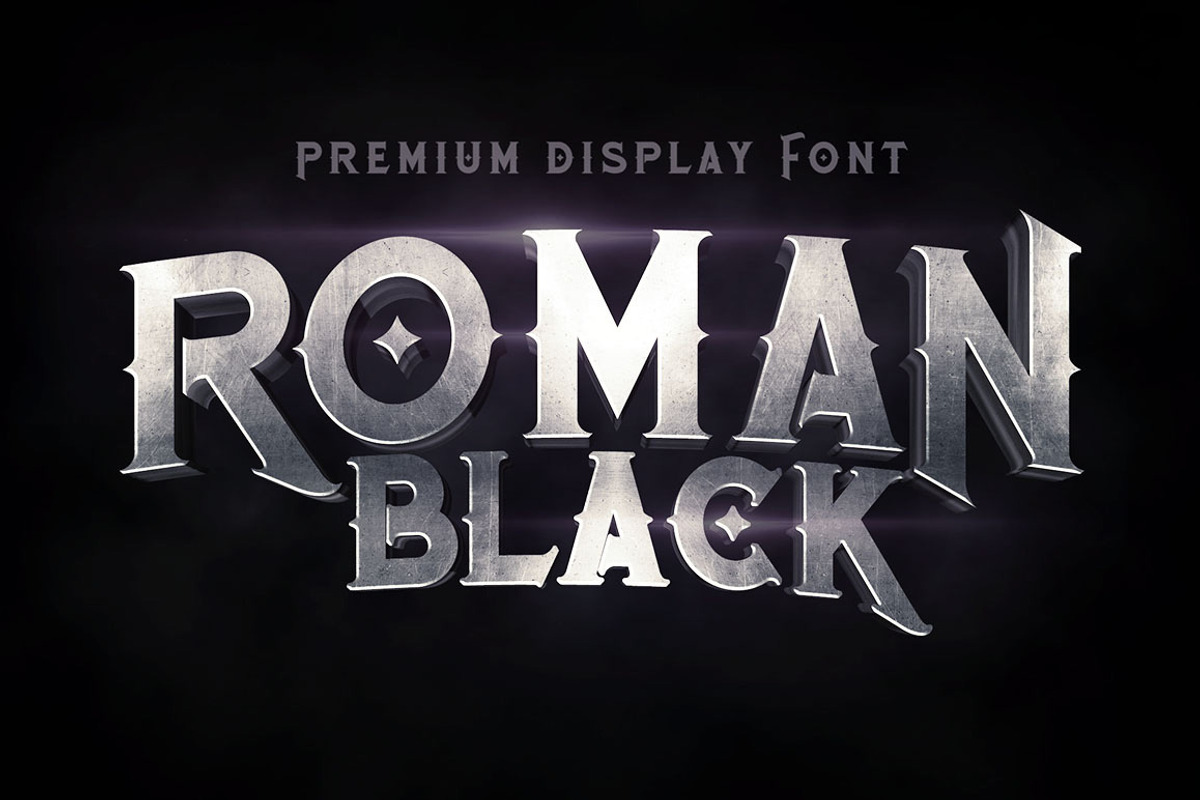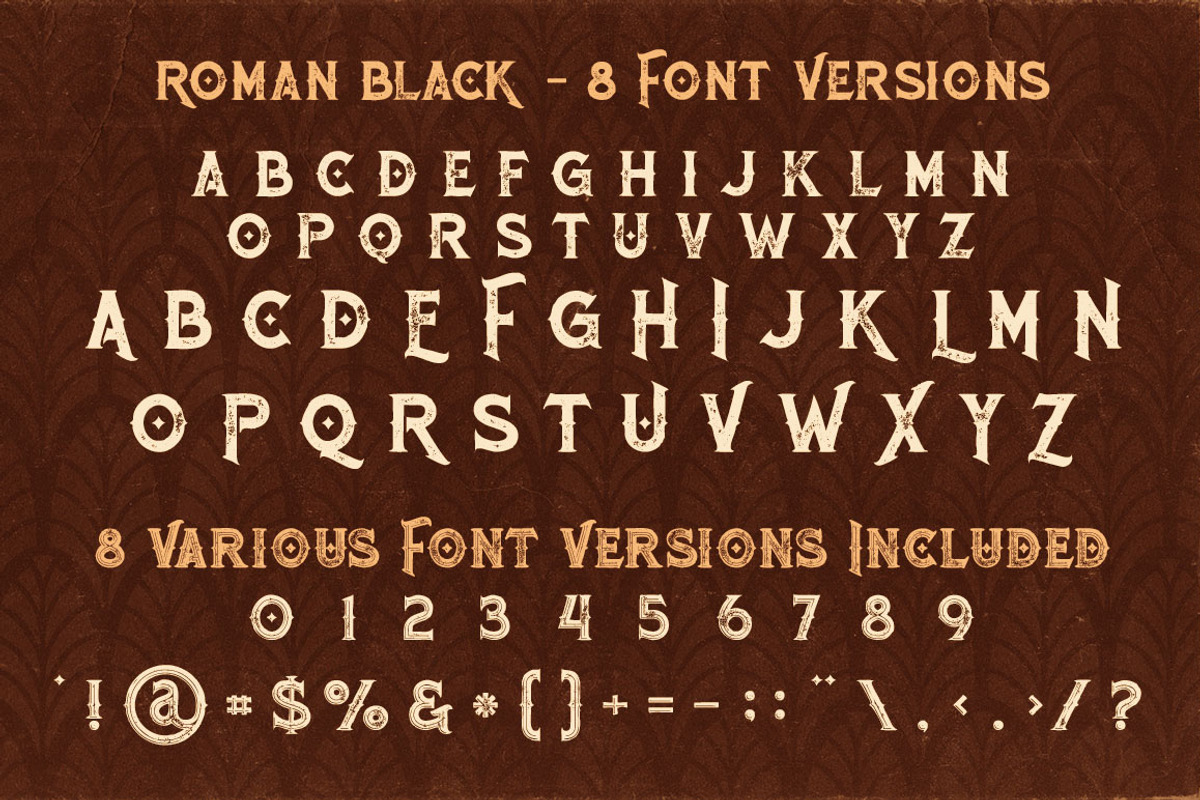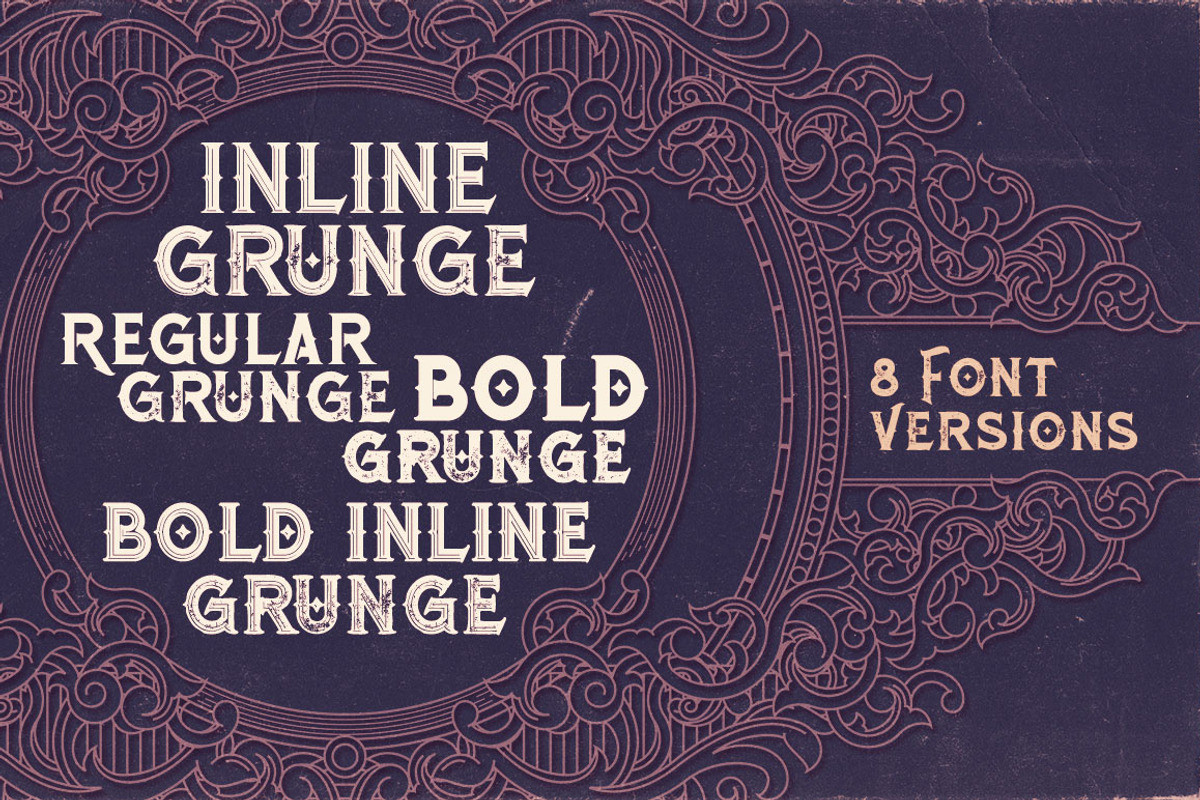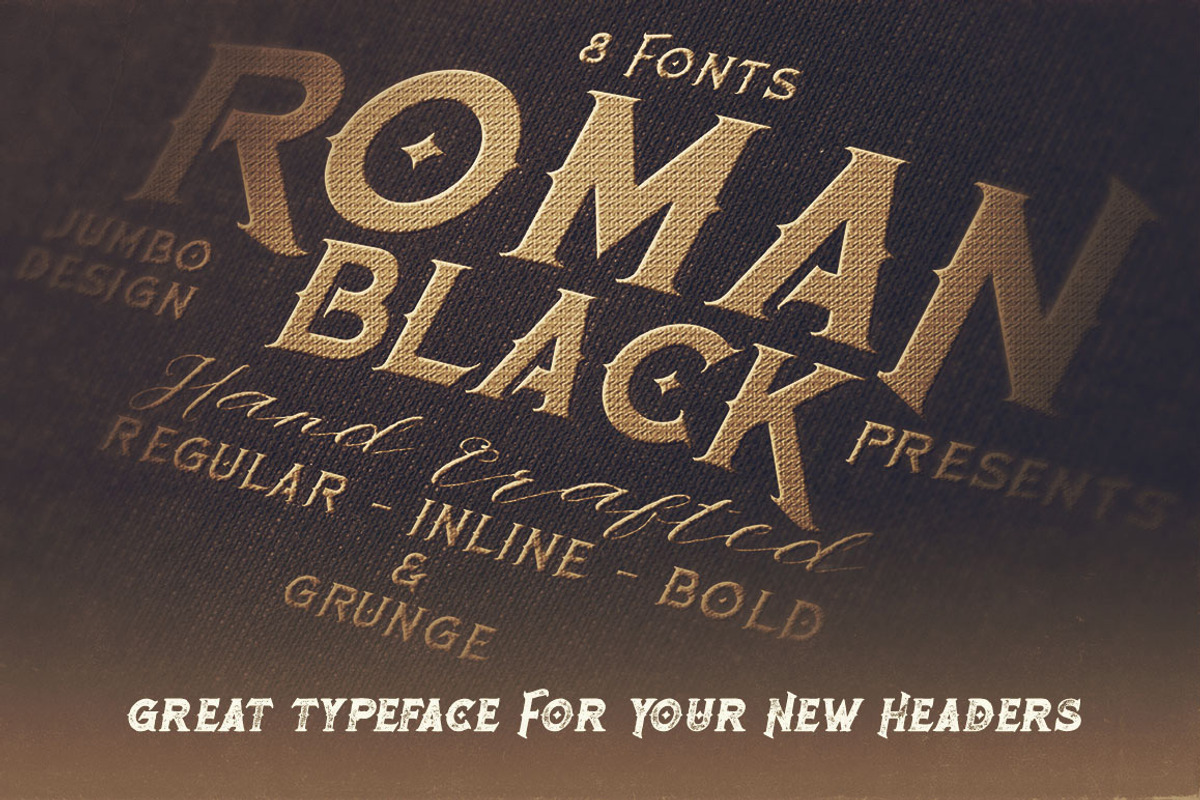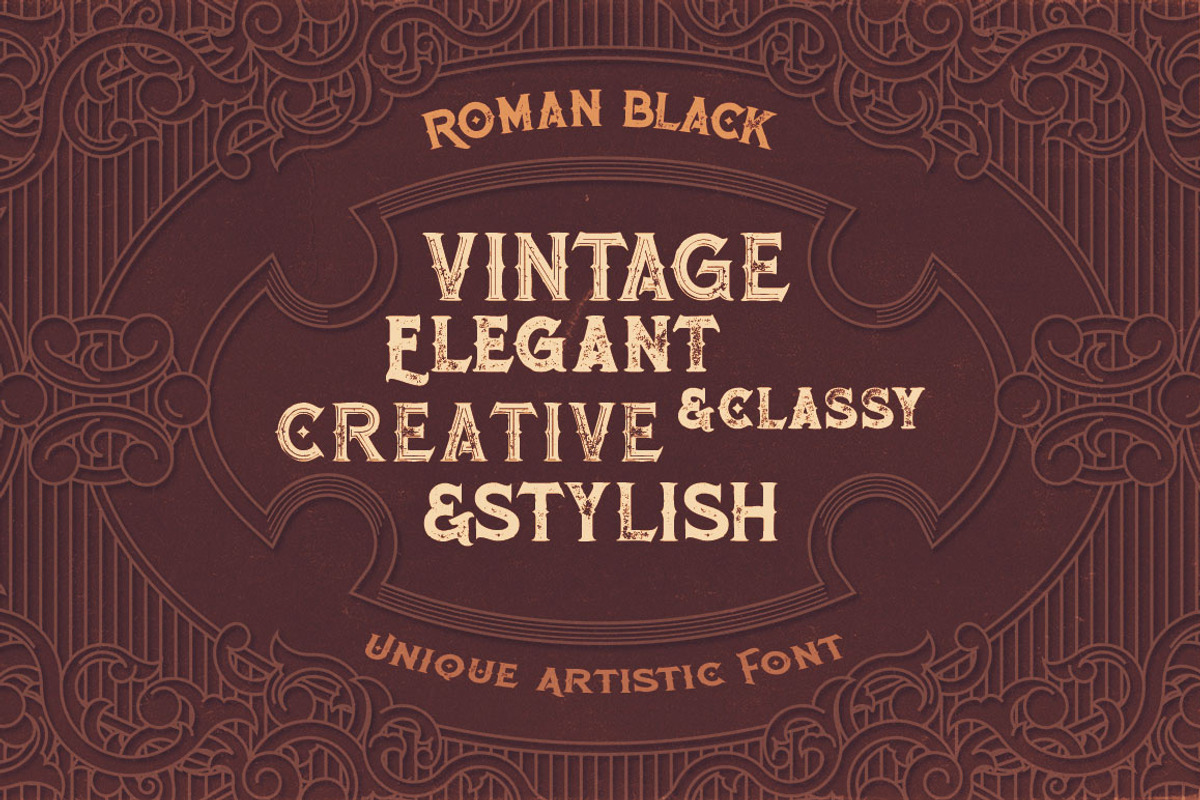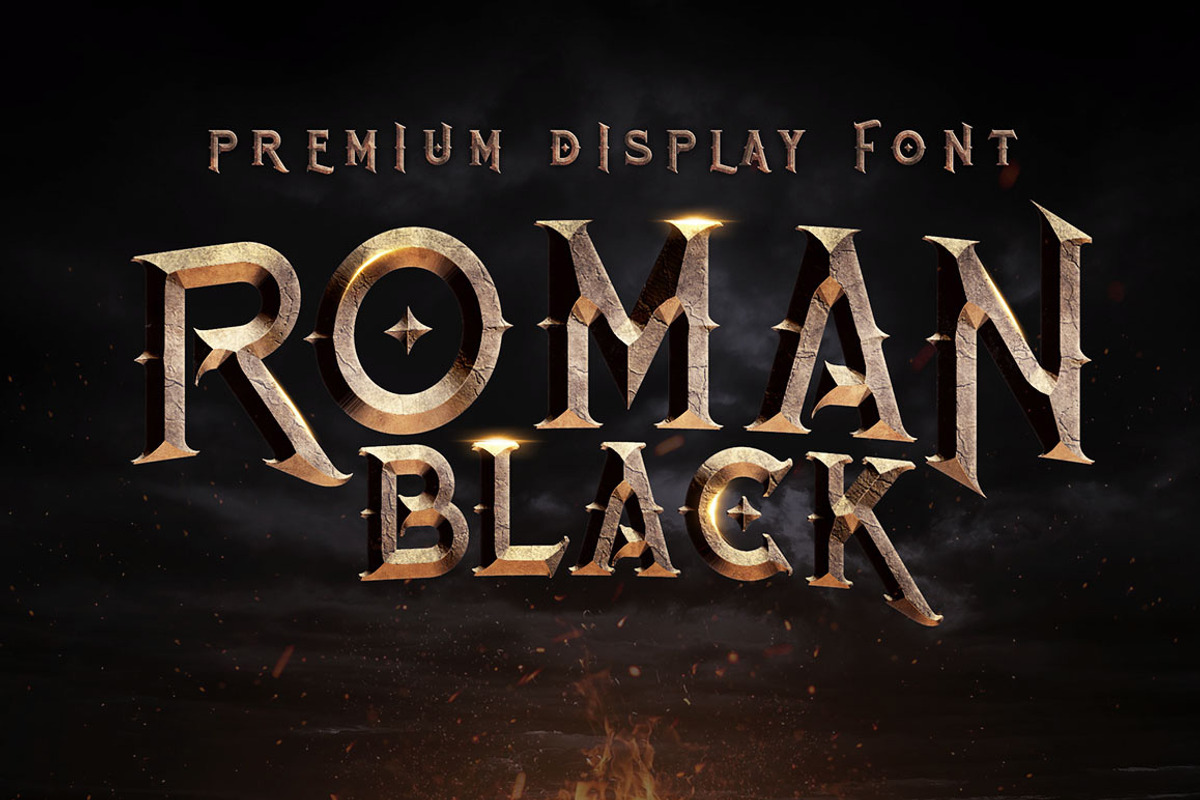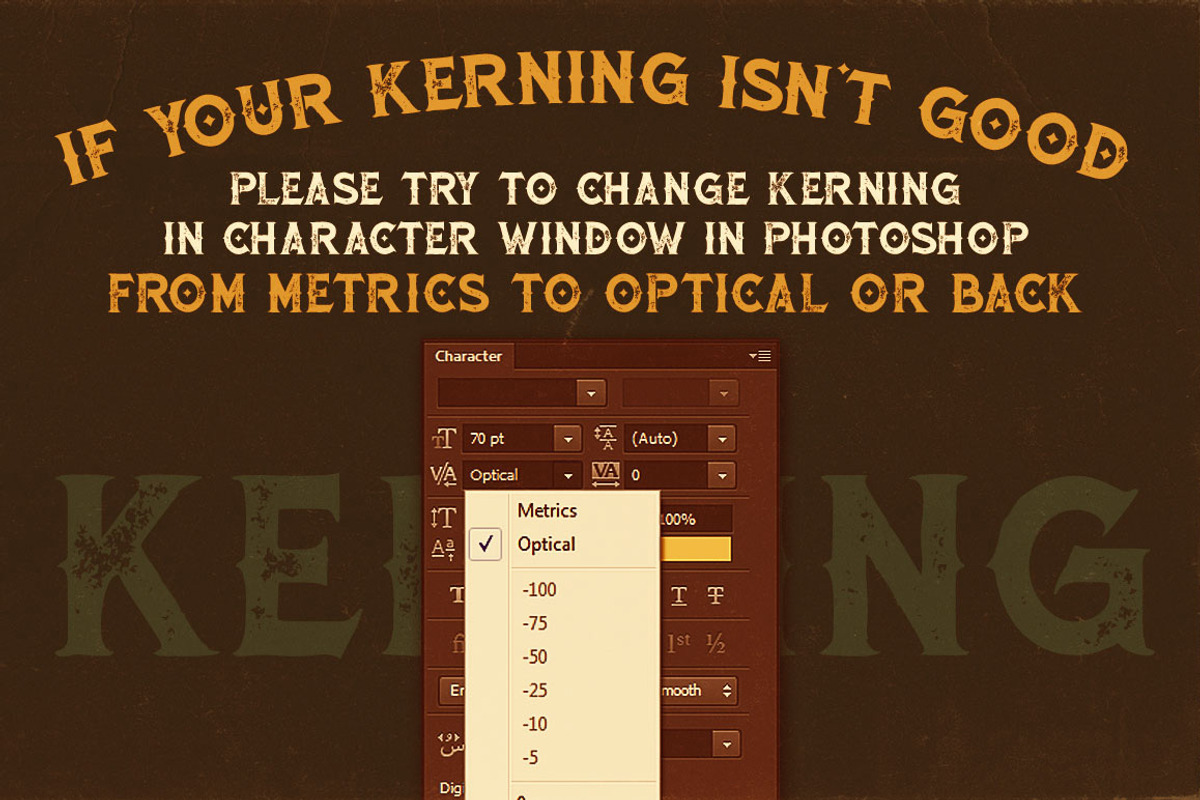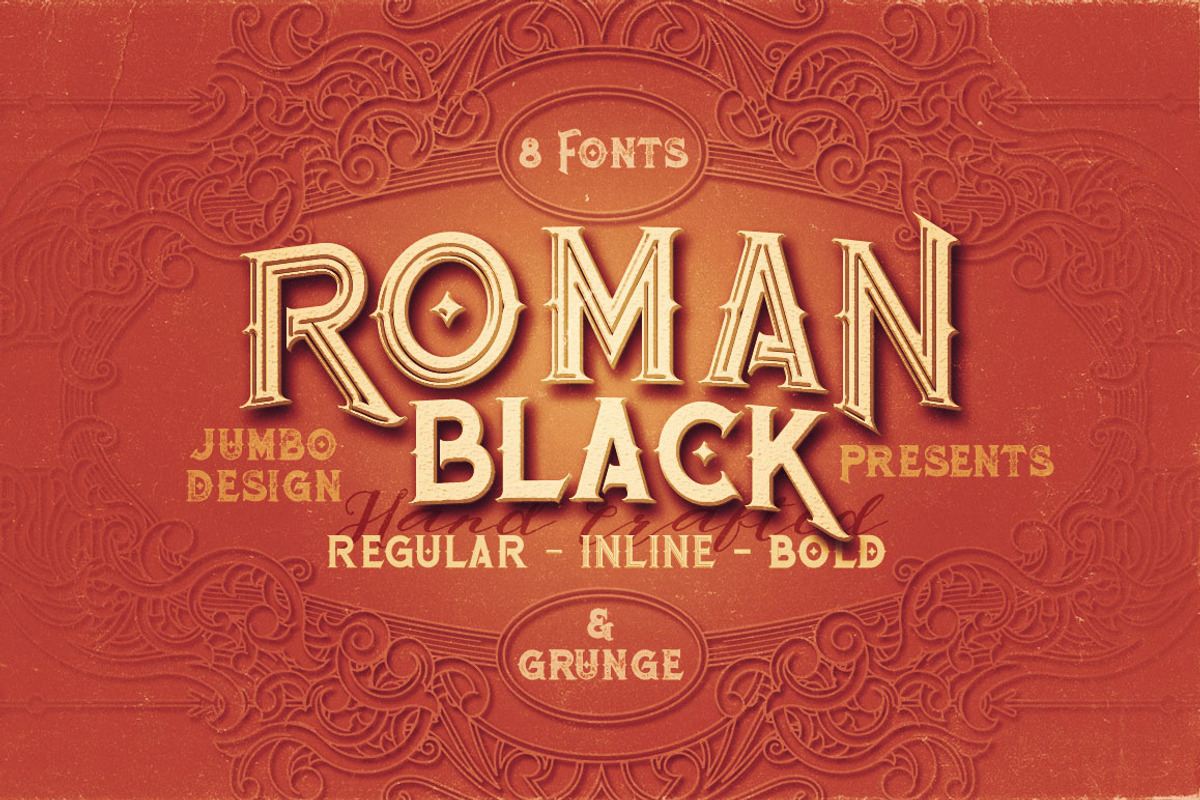
Roman Black - 8 Display Fonts
Unique vintage & ornamental style custom serif font with 8 styles: regular and grunge, inline and inline grunge, bold and bold grunge, bold inline and bold inline grunge.
Roman Black - 8 Display Fonts by JumboDesign fits naturally into Branding, posters, packaging, typography.